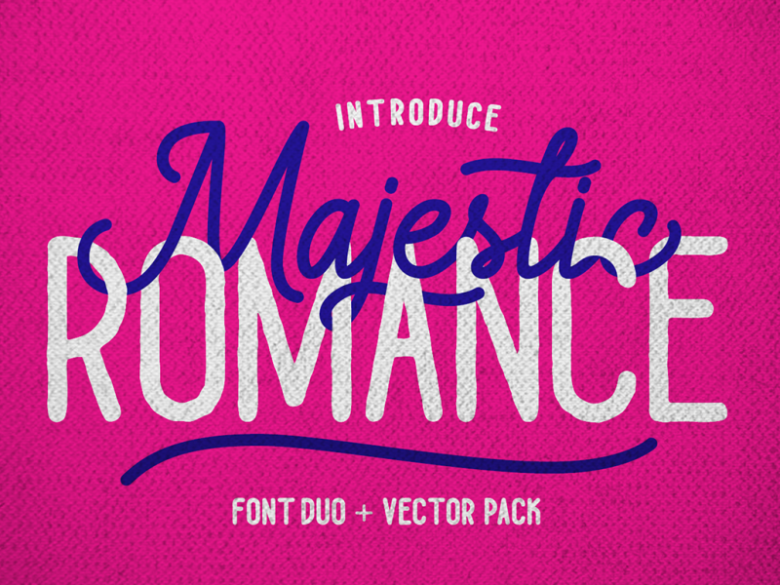
Majestic Romance Script Font
Really excited to introduce Majestic Romance is gorgeous duo monoline font script and sans serif font with two variation regular, rough. Majestic Romance perfect for poster design, book covers, merchandise, fashion campaigns, newsletters, branding, advertising, magazines, greeting cards, album covers, and quote designs and more.